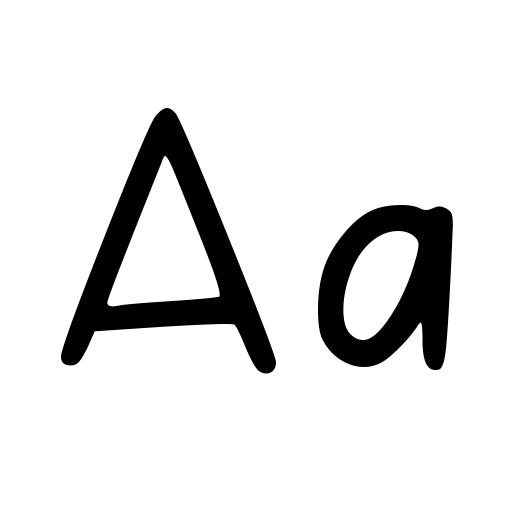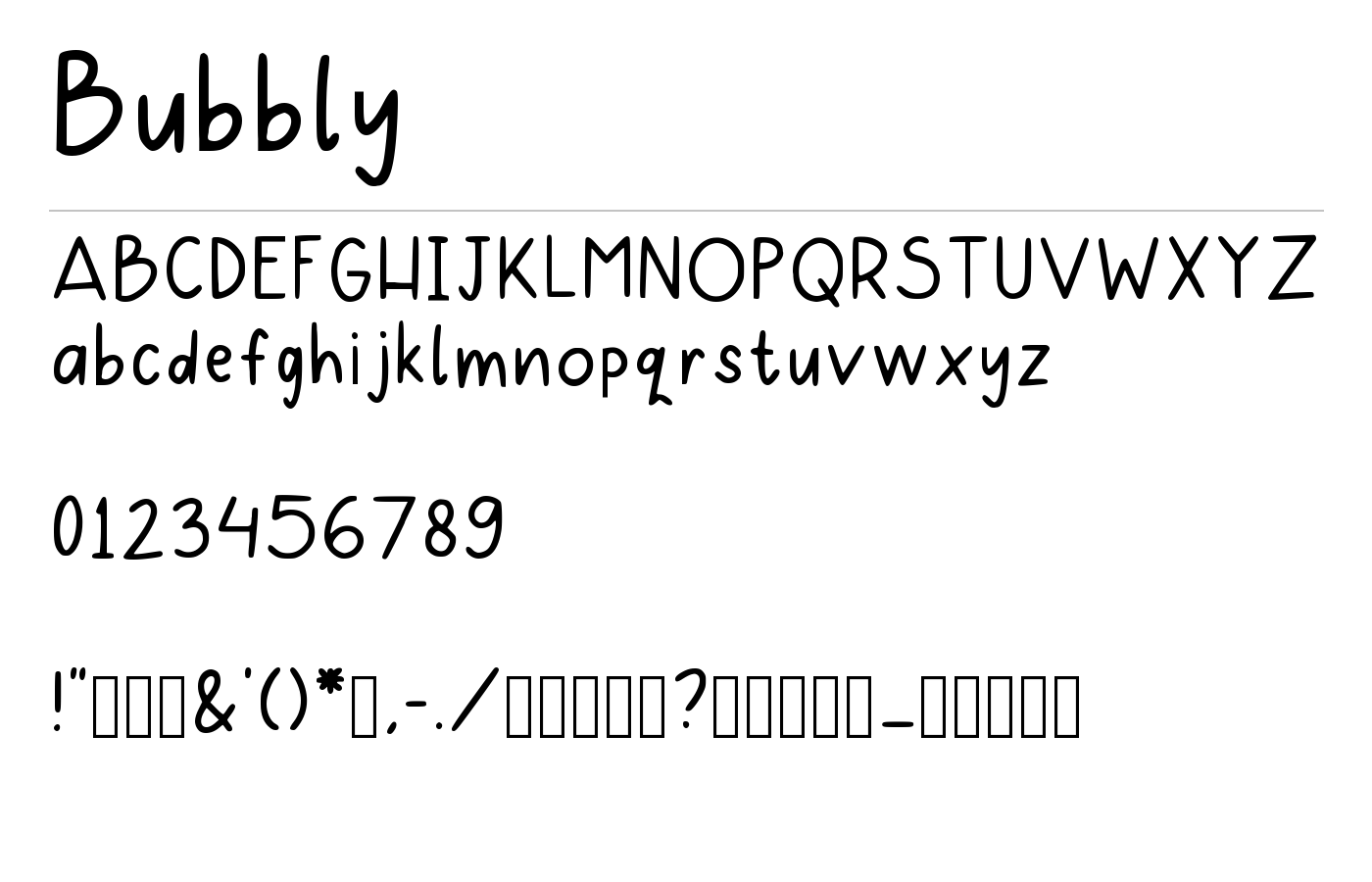
Bubbly Font is a playful and casual handwritten sans serif with a light weight and generous x-height that gives it an airy, friendly feel. Its rounded, slightly irregular letterforms create a warm and approachable personality, making it ideal for children's materials, informal branding, and creative projects that want to convey fun and spontaneity. This font works best in display settings like headlines, posters, and packaging where a lively, personal touch is needed.
Bubbly Font